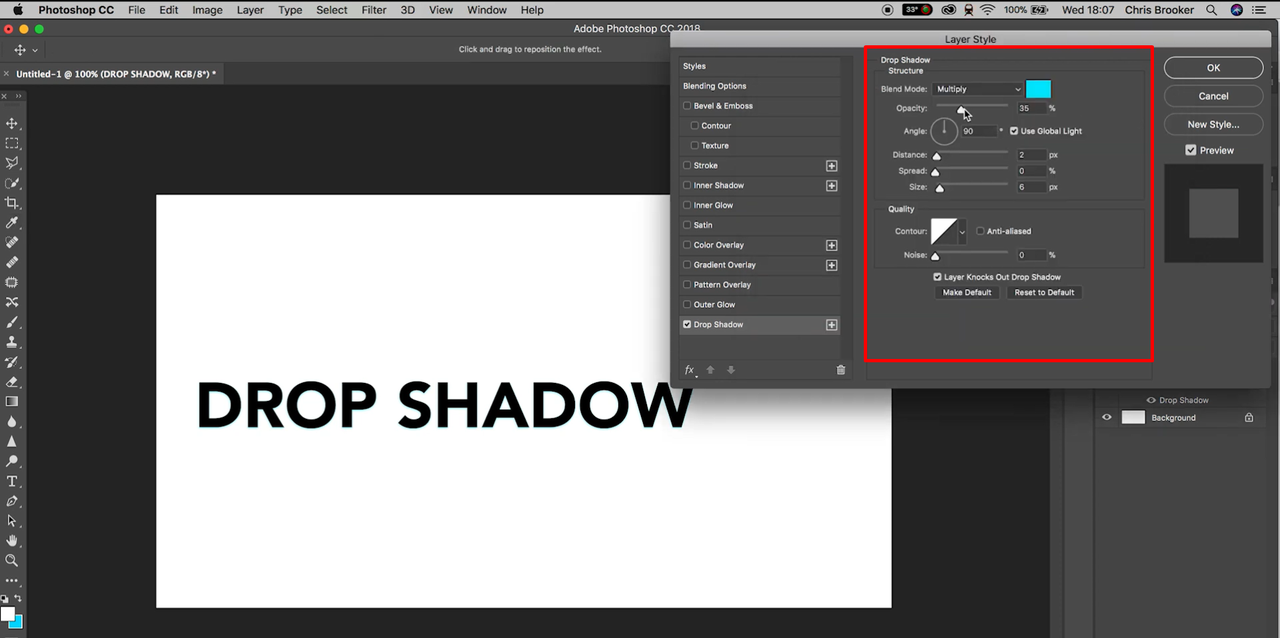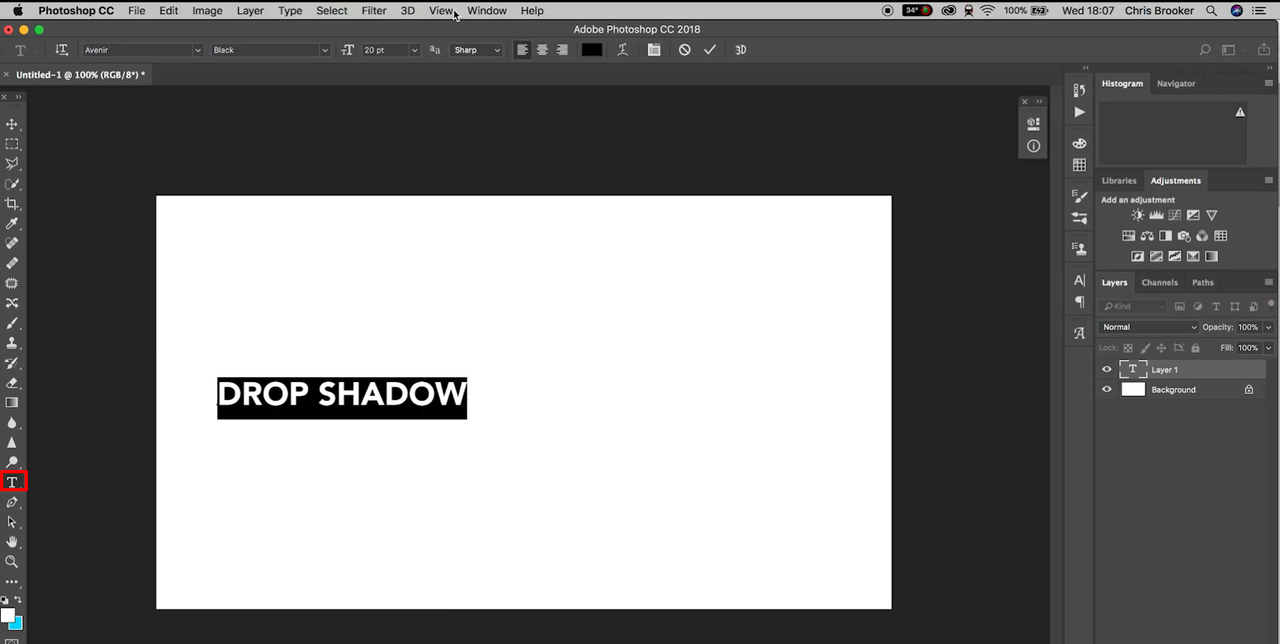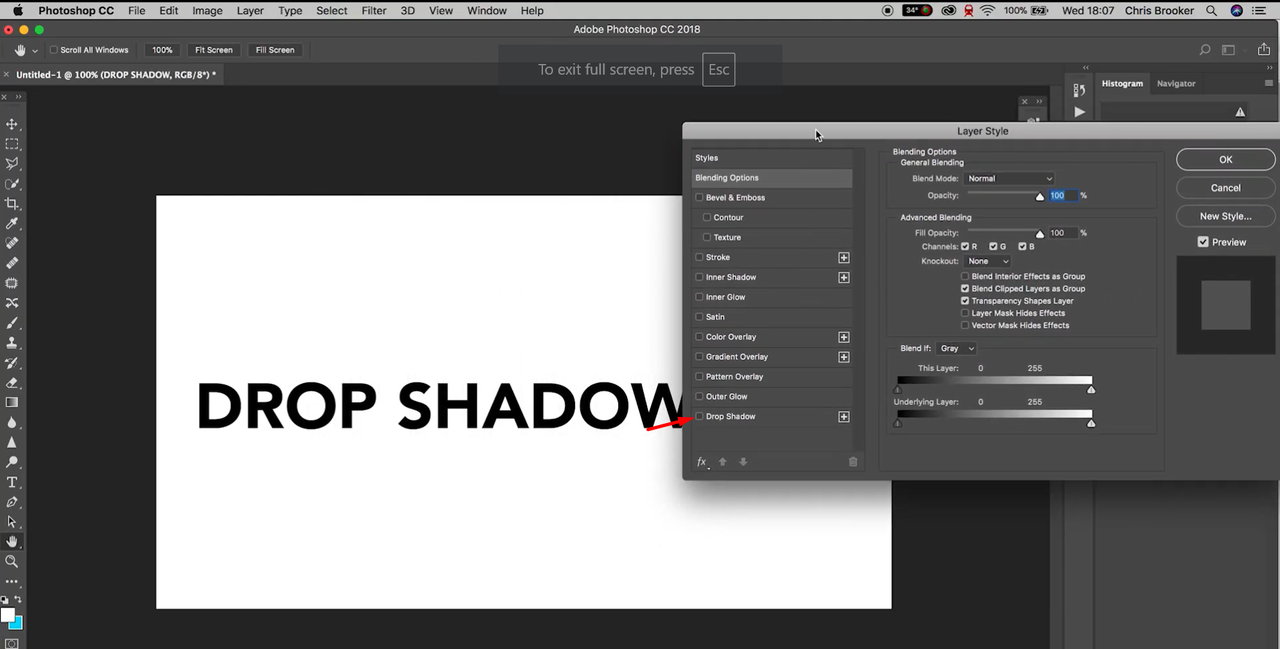
Adding shadows to text can give it depth and make it look more engaging and visually appealing. With Photoshop, you can easily create and customize these shadow effects to suit your design needs. While the process can seem challenging for beginners, this guide will show you how to enhance text with font shadows in Photoshop.
What is text drop shadow in Photoshop
In Photoshop, a text drop shadow is a visual effect that adds depth to your text by making it appear lifted off the background. This effect creates a shadow behind the text, often with adjustable blur, opacity, and distance settings to achieve the desired look. It's a simple tool but powerful for adding contrast and making your text pop in any design. This is why it becomes very crucial to understand how to add a shadow to text in Photoshop.
Why use Photoshop for drop shadow text
Here's why Photoshop text-shadow effect is best for creating eye-catchy visuals:
• Easy customization
Photoshop provides intuitive settings to adjust shadow angle, distance, size, and spread, letting you create the perfect shadow for your text with minimal effort.
• Multiple drop shadows
You can add multiple drop shadows to the same text layer, which enables layered effects that add depth and dimensionality without needing separate layers.
• Precise opacity control
With adjustable opacity settings, you can easily control how intense or subtle the shadow appears. This lets you achieve the exact look you’re aiming for.
• Easy shadow modification
You can quickly change shadows by adjusting properties like blur, spread, and angle. This method provides dynamic updates without affecting other elements in the design.
• Multiple blending modes
Photoshop provides various blending modes (e.g., Multiply, Overlay, Soft Light) that interact with the background color and give you the flexibility to achieve more complex shadow effects.
How to add shadow on text in Photoshop
Here's how to add a drop shadow to text in Photoshop:
STEP 1
1. Select your text layer
Open Photoshop and select the "T" icon to type your text or select an existing text layer to which you want to apply the shadow effect.
Selecting font to shadow in Photoshop
STEP 2
1. Open the Layer Styles panel
With the text layer selected, go to the top menu and choose "Layer" > "Layer Style" > "Drop Shadow". Alternatively, you can right-click the layer and choose Blending Options. This will open the "Layer Style" panel.
Adding a drop shadow to text in Photoshop
STEP 3
1. Customize the shadow
In the "Drop Shadow" settings, adjust options like "Opacity" (to control shadow transparency), "Angle" (to set the shadow direction), "Distance" (to control shadow offset), "Spread", and "Size" for a softer or sharper edge.
Customizing the drop shadow effect
STEP 4
1. Preview and apply
Check the Preview box to see the effect in real time, then click "OK." This is how to put a shadow on text in Photoshop.
Showing how to add shadow to text in Photoshop
How to add shadows to photos in Photoshop
Adding shadows to photos in Photoshop involves creating a realistic effect that mimics natural light and enhances the depth of an image. Here's how to add shadow to photos in Photoshop:
STEP 1
1. Select the layer for shadow creation
Start by selecting the layer of the object or subject in your photo that needs a shadow. This lets you create the shadow directly linked to the chosen element.
Selecting the photo in Photoshop to add a realistic shadow effec
STEP 2
1. Add a drop shadow
Go to "Layer" > "Layer Style" > "Drop Shadow" with the duplicate layer selected. adjust settings such as "Opacity", "Distance", "Spread", and "Size" to fit the lighting and placement. The angle setting is key for determining the shadow’s direction.
Adding and adjusting drop shadow settings in Photoshop
STEP 3
1. Transform the shadow layer
Press Control + T to transform the shadow layer and use the handles to adjust its size. Next, right-click on the photo and select "Distort" to reshape the shadow. Align it with the photo's light source and perspective, adding depth and ensuring a natural look.
1. Can I add shadow to text in Photoshop on mobile?
Adding a shadow to text on Photoshop mobile can be done through simple adjustments. Though limited compared to the desktop version, you can apply effects like drop shadows using the mobile Layer Settings, making it possible to add depth to text on mobile. You can also use the CapCut mobile app to add shadows to text using the CapCut mobile app. However, for the advanced level adjustment, use the CapCut desktop video editor.